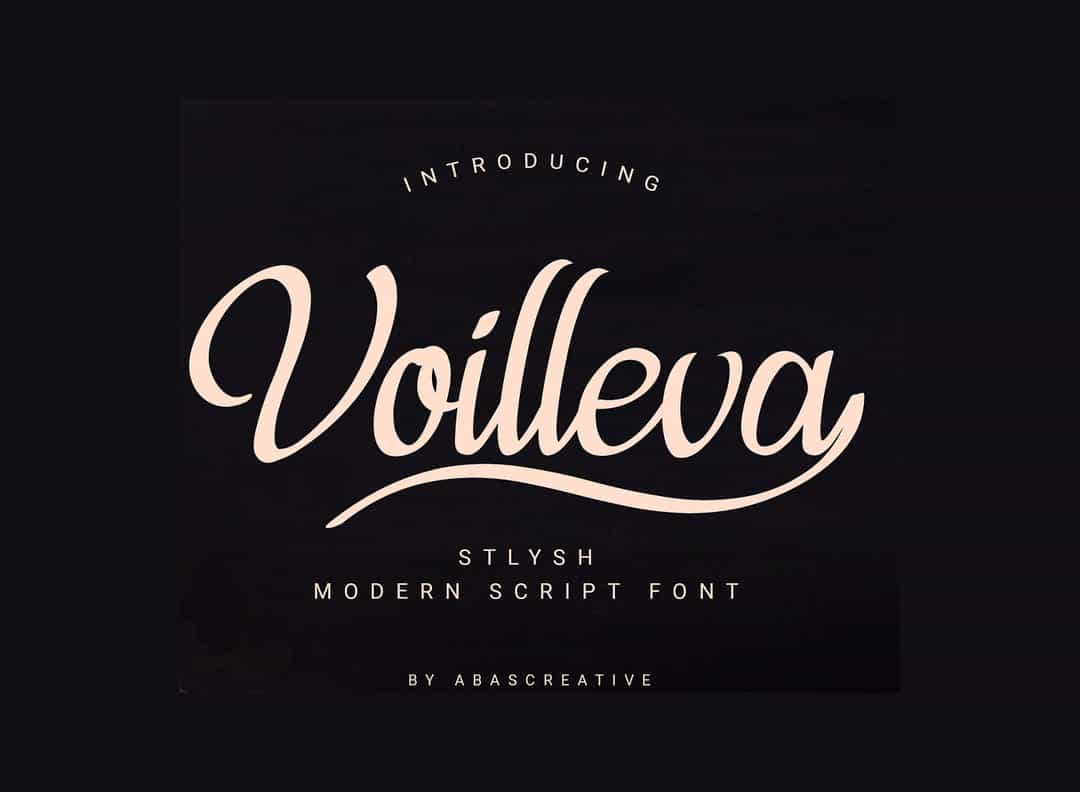
Voilleva is a calligraphic font for everyone. Let it studios, t-shirt design, or any other artistic project with the logoing connected like branding logos of various foo; And you will find that Voilleva makes absolutely everything absolutely beautiful.